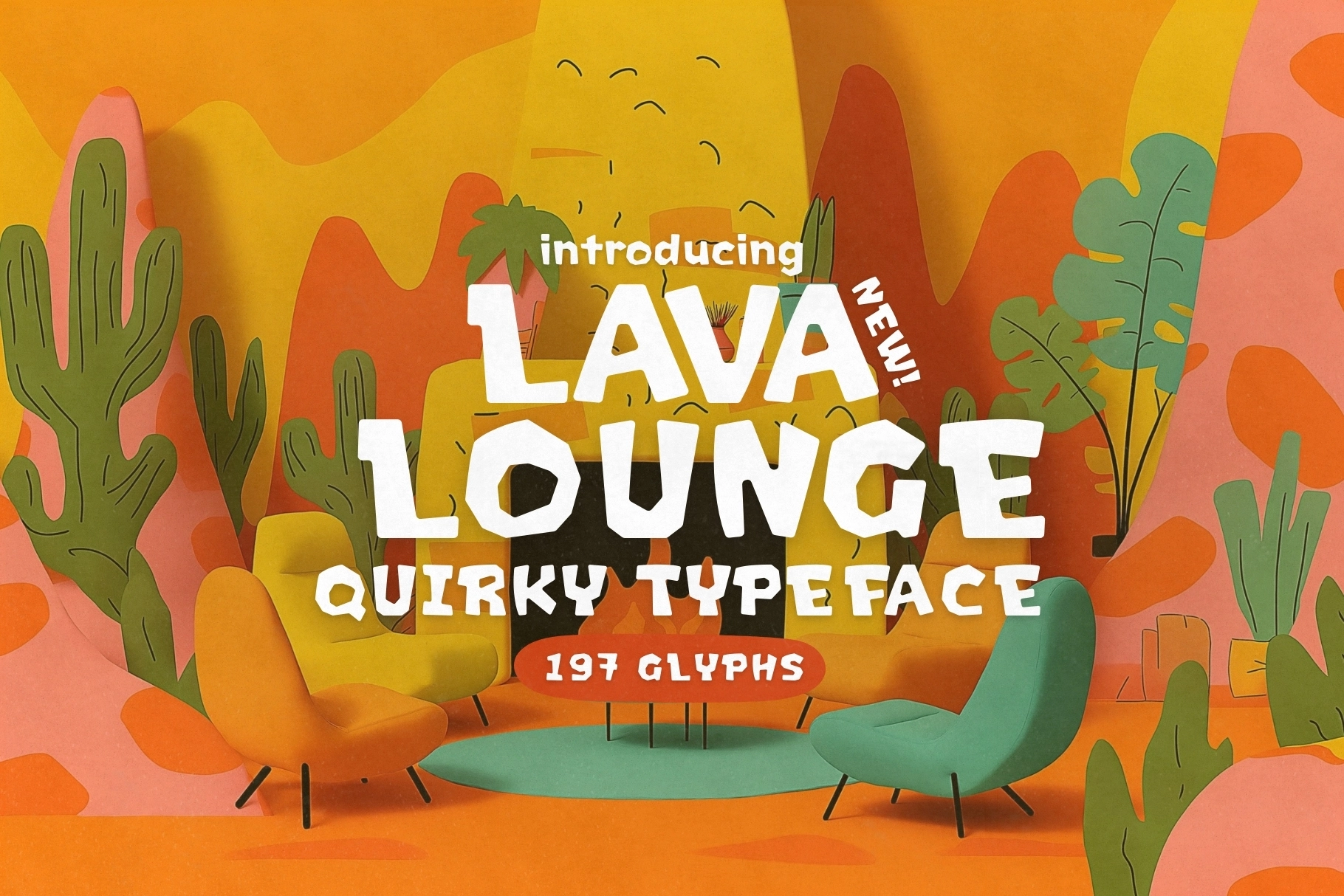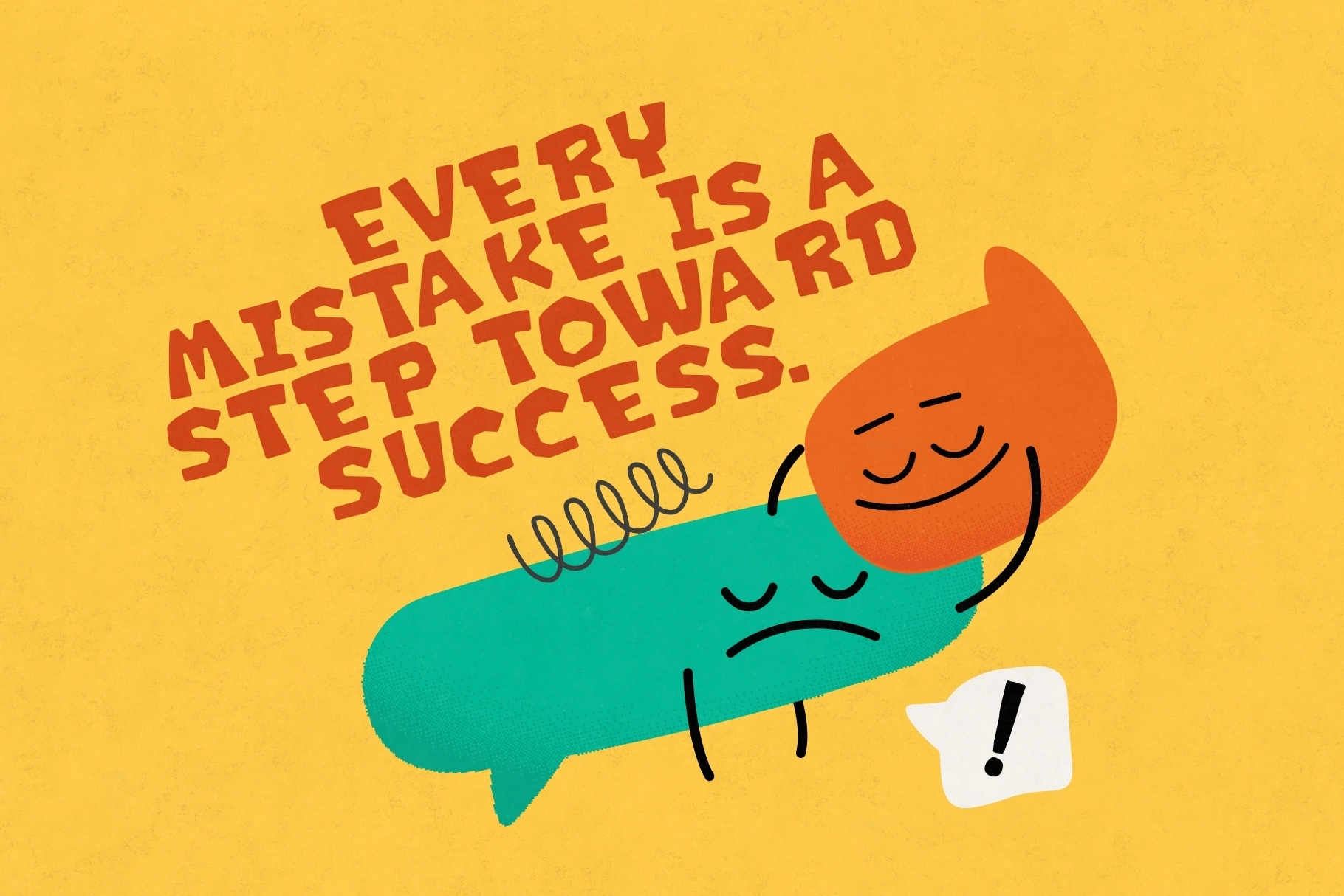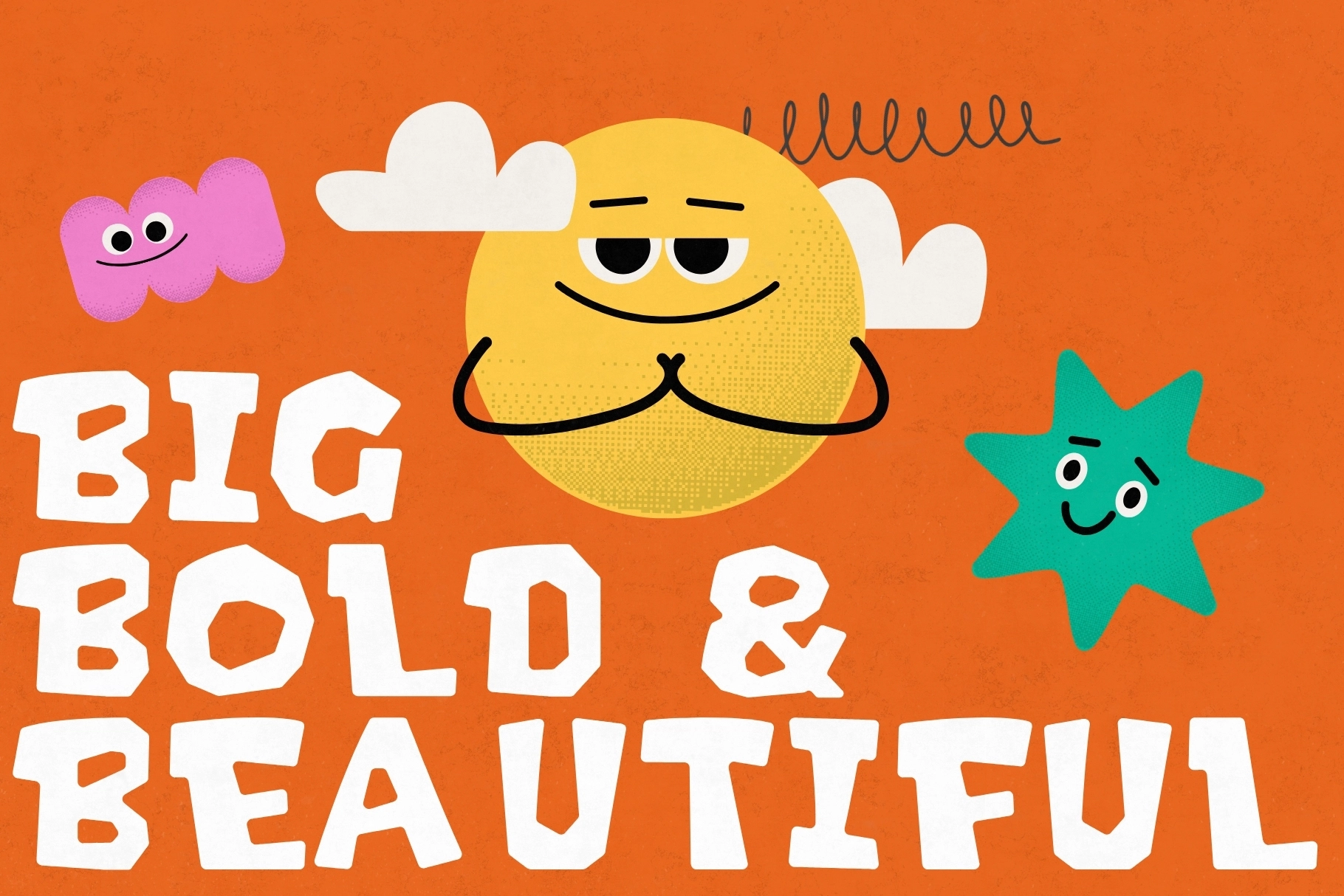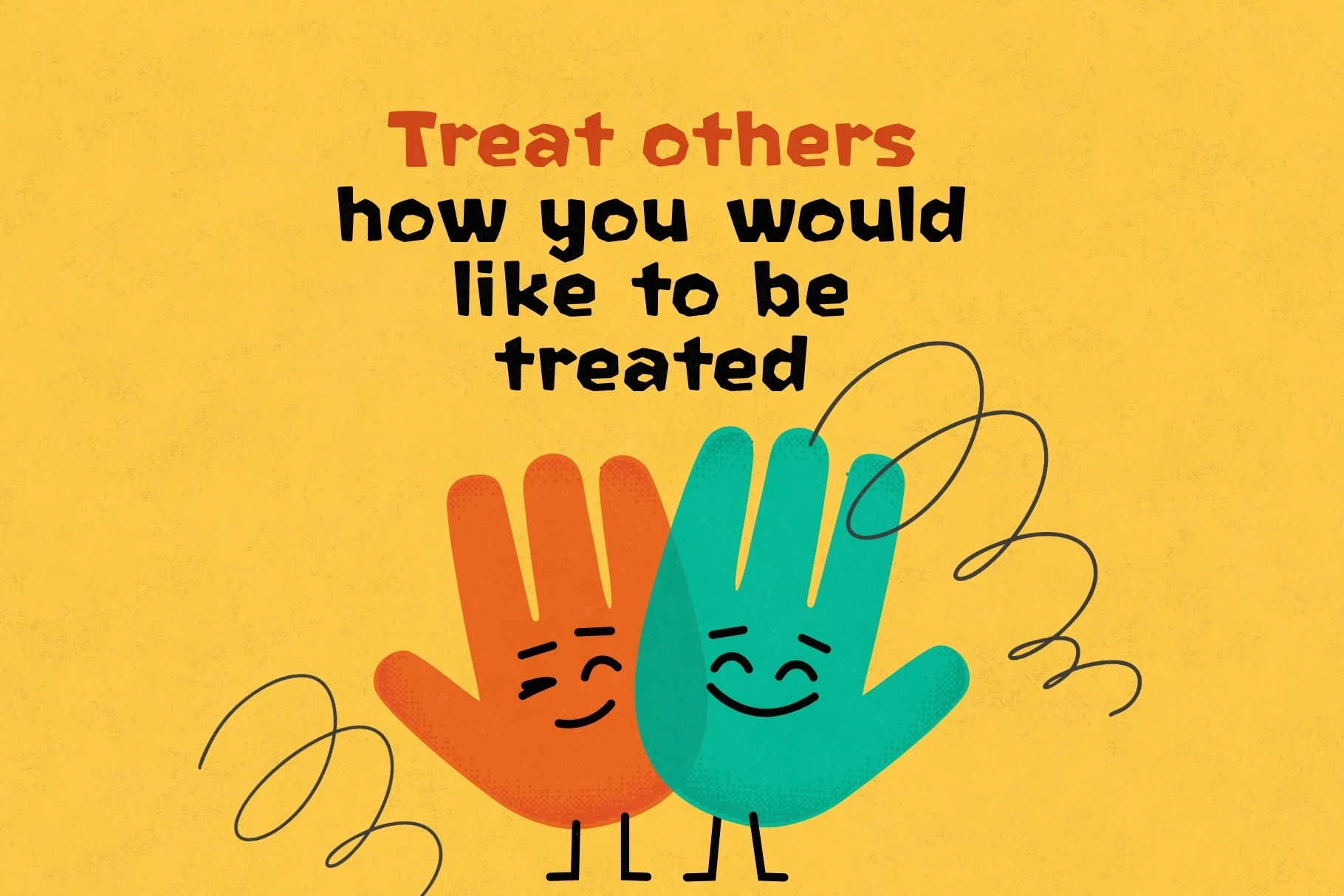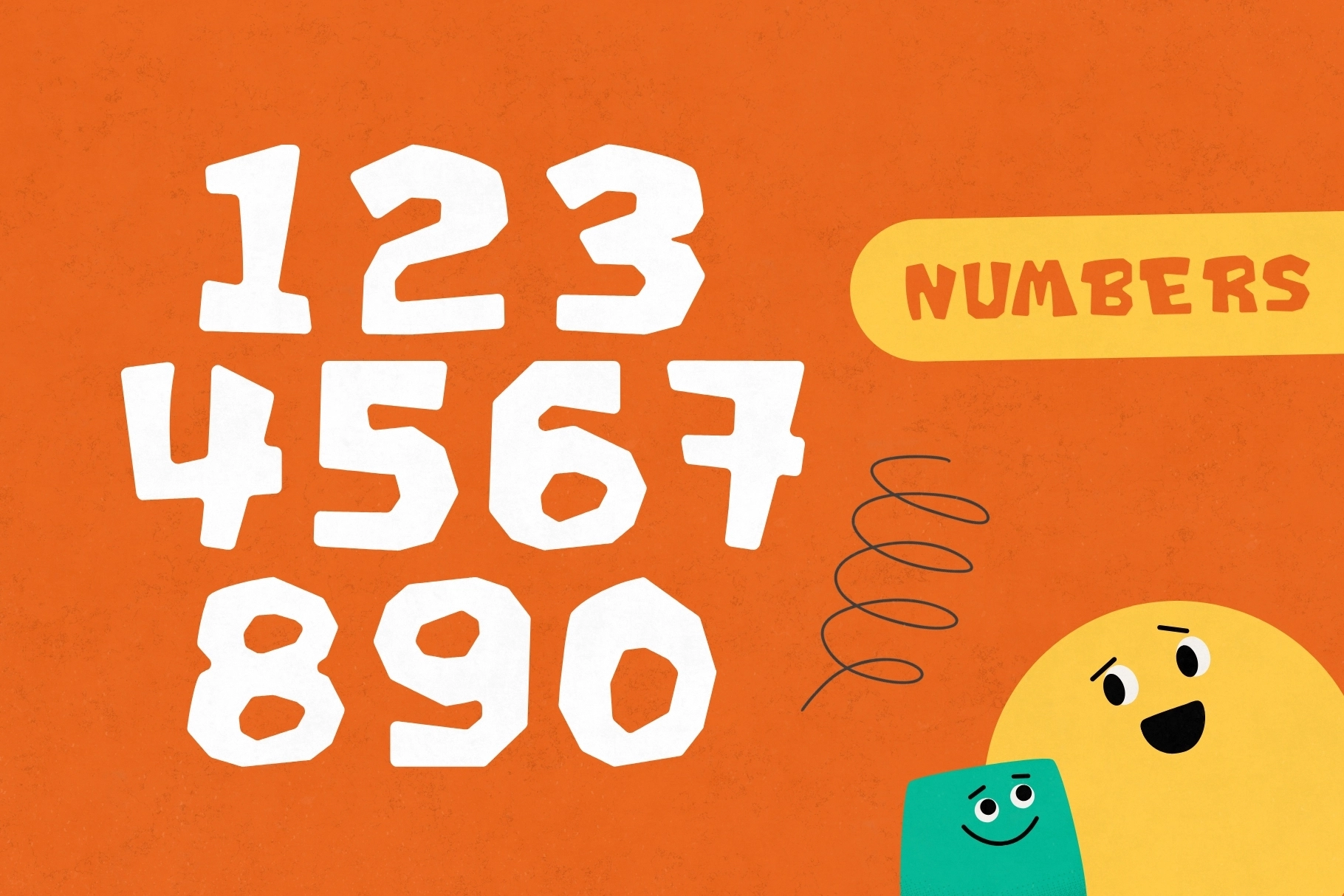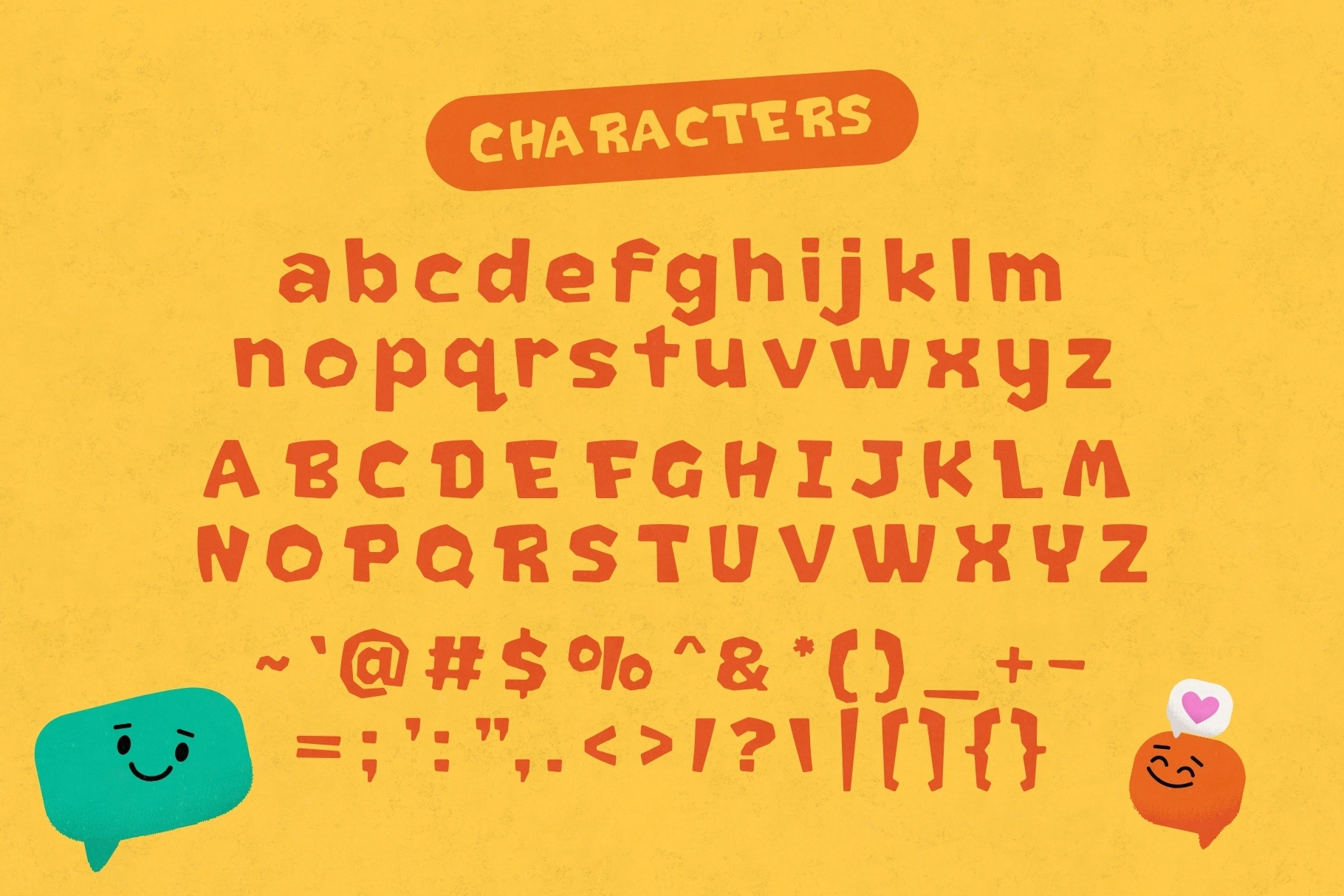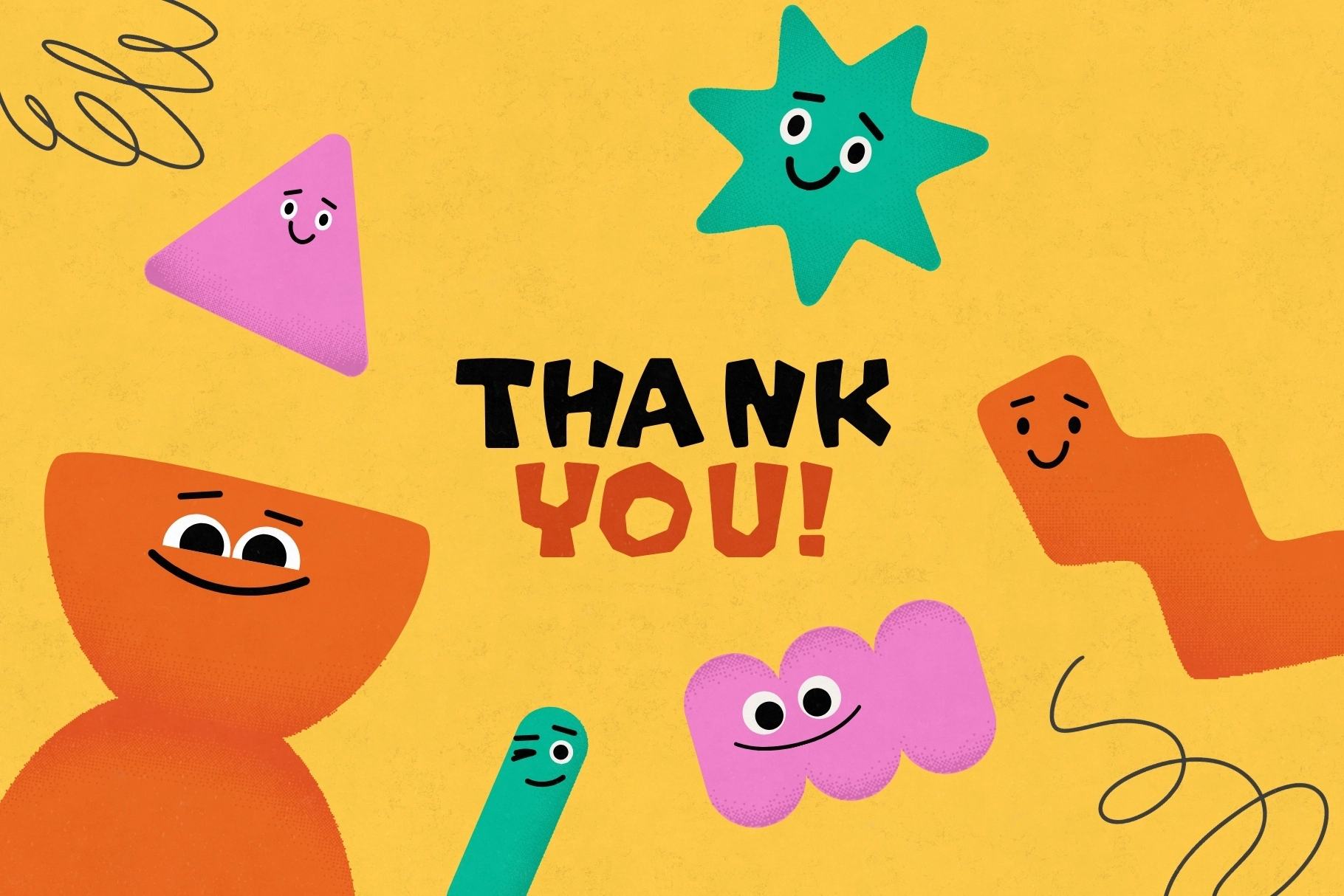
Lava Lounge - Quirky Cartoon Typeface
Step into a playful stone-age world with Lava Lounge, a quirky and adorable rock-style typeface inspired by the charm of Flintstone-era cartoon lettering. Chunky, fun, and full of prehistoric personality, Lava Lounge brings imagination to life in the most delightful way — perfect for young audiences and creative projects that need a spark of joyful energy.
With 197 expressive glyphs and support for 65 languages, Lava Lounge is versatile, easy to use, and designed to stretch across borders and classroom walls alike. Its bouncy, rock-carved forms create instant visual character, making every word feel like it was chiseled straight from the side of a volcano.
Ideal for kids’ projects, teacher resources, classroom décor, educational printables, cartoons, birthday invitations, crafts, posters, book covers, and playful branding, this typeface adds a friendly prehistoric touch you can’t help but smile at.
Whether you're designing a dinosaur-themed classroom, a fun YouTube thumbnail, or a kids’ book title that needs to POP — Lava Lounge brings the heat, the fun, and the lava-rock charm.